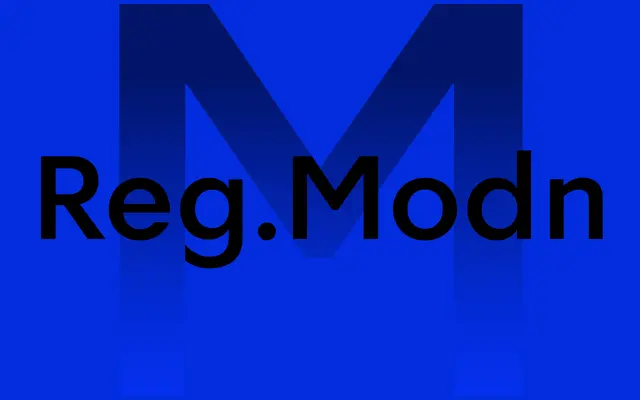
Reg.Modn
A geometric sans drawn from A2-Type's own Regular, Schwiss and London typefaces, available as a variable font across five weights with matching italics.
Combining historical geometric references with a clean modern character, the family spans Regular through Black with italic counterparts for each weight. Variable font files in GX/TTF format cover the full weight axis for both Roman and Italic styles, making it well suited to digital platforms where a single file needs to flex across weights. A2-Type position it as a legible all-rounder with enough personality to carry editorial and identity work.
A2-Type describe it as historical, modern and geometric; its origins in A2's own Regular, Schwiss and London typefaces point to a geometric sans lineage with modernist proportions.